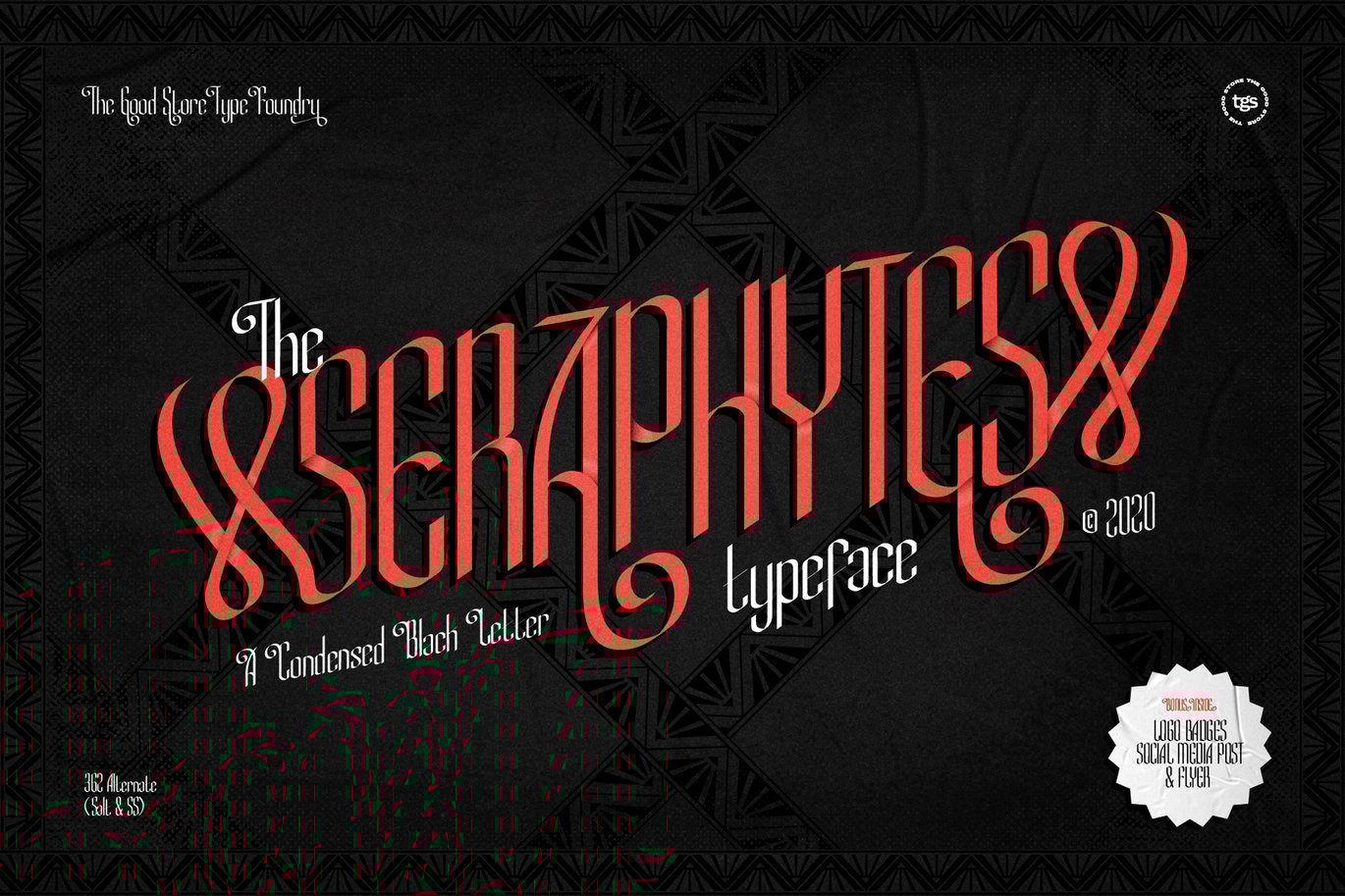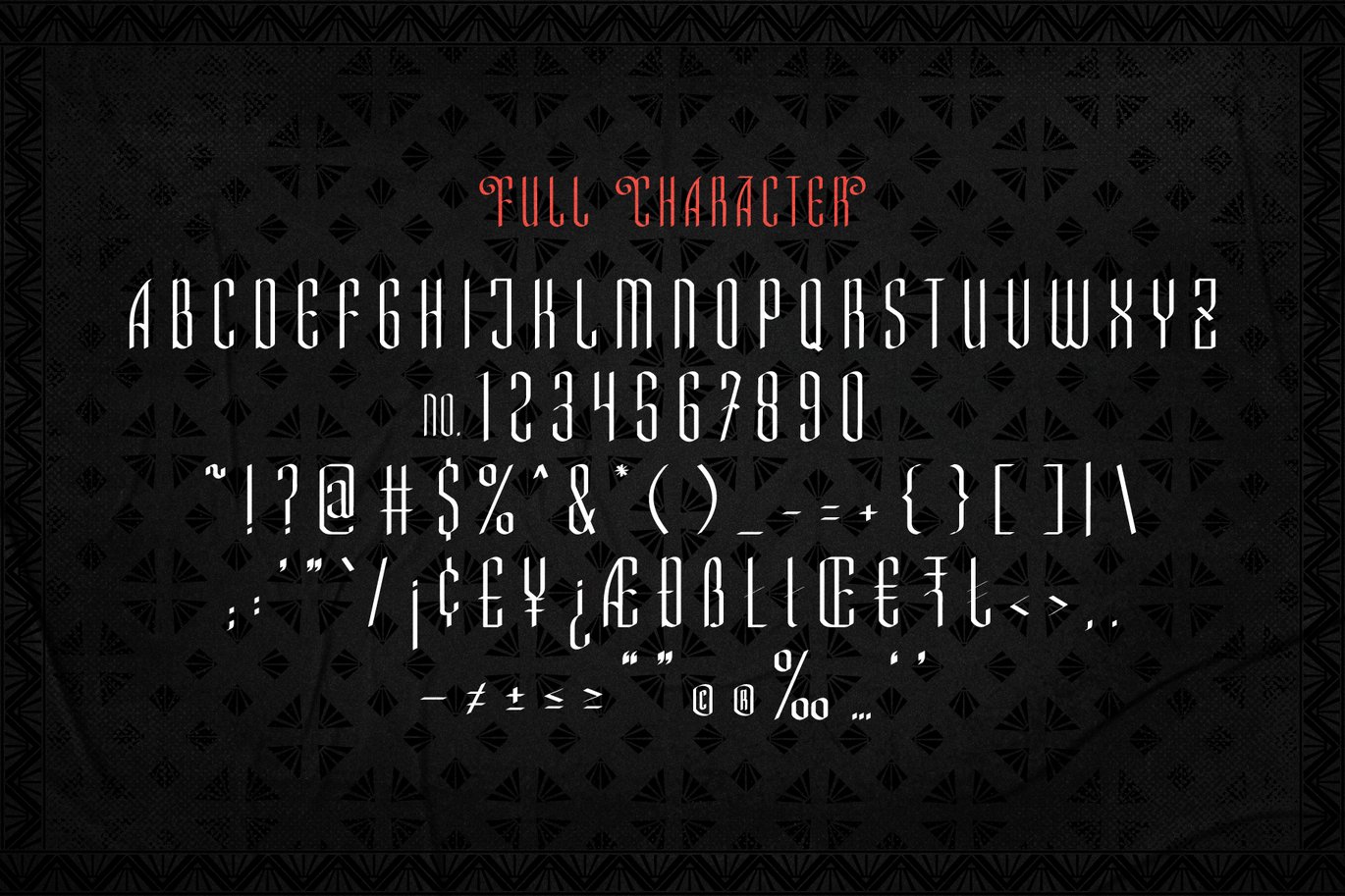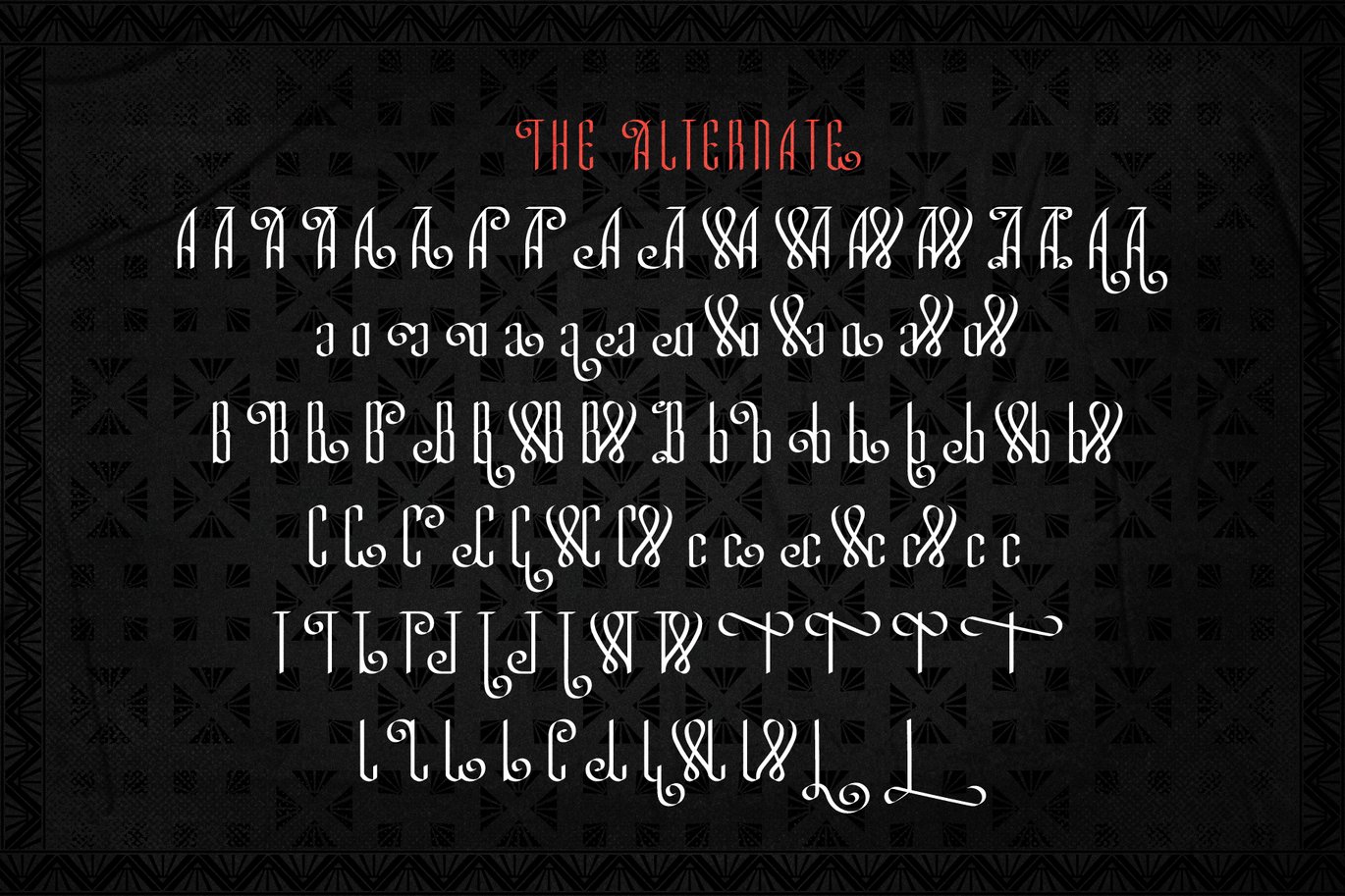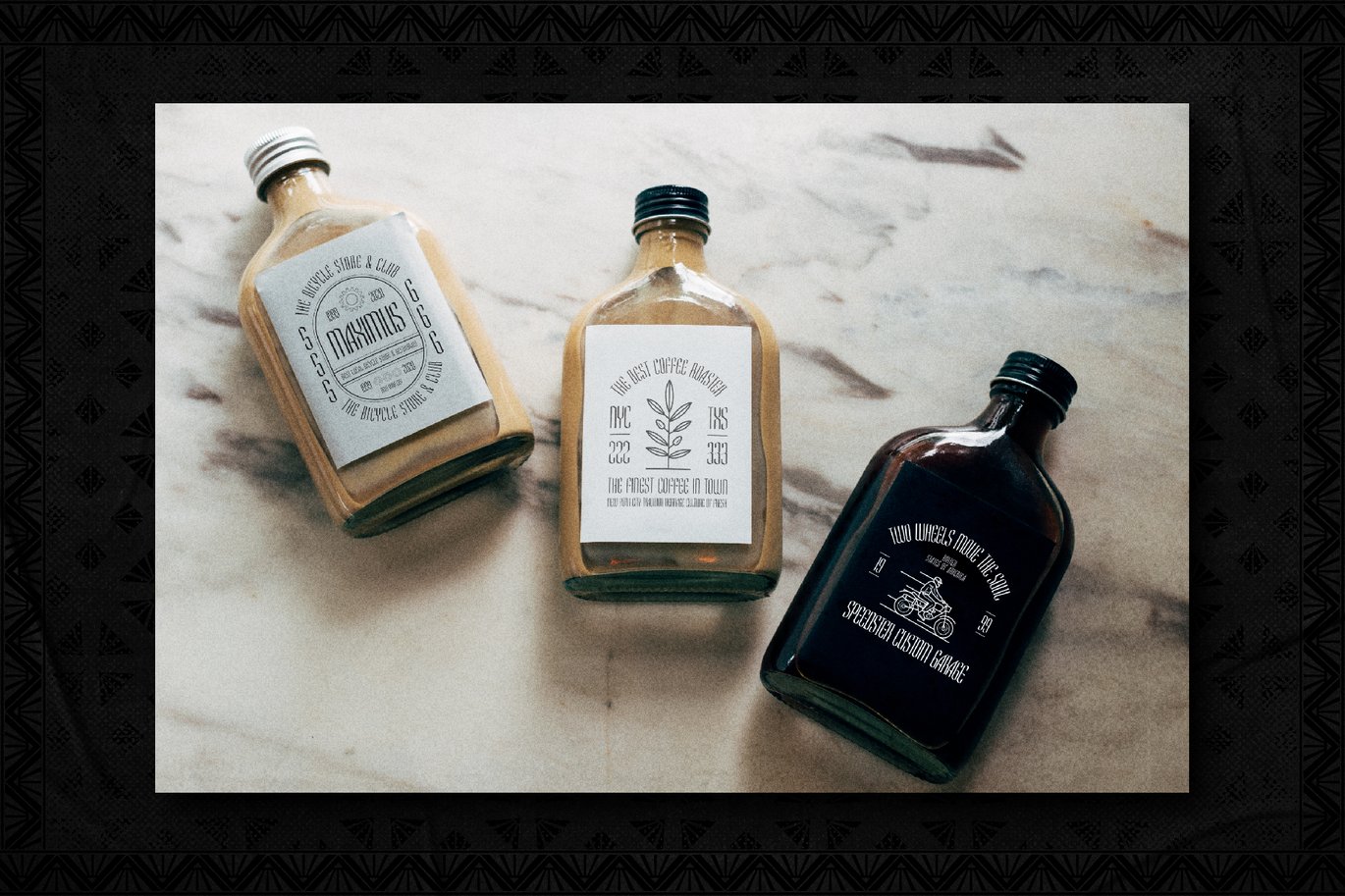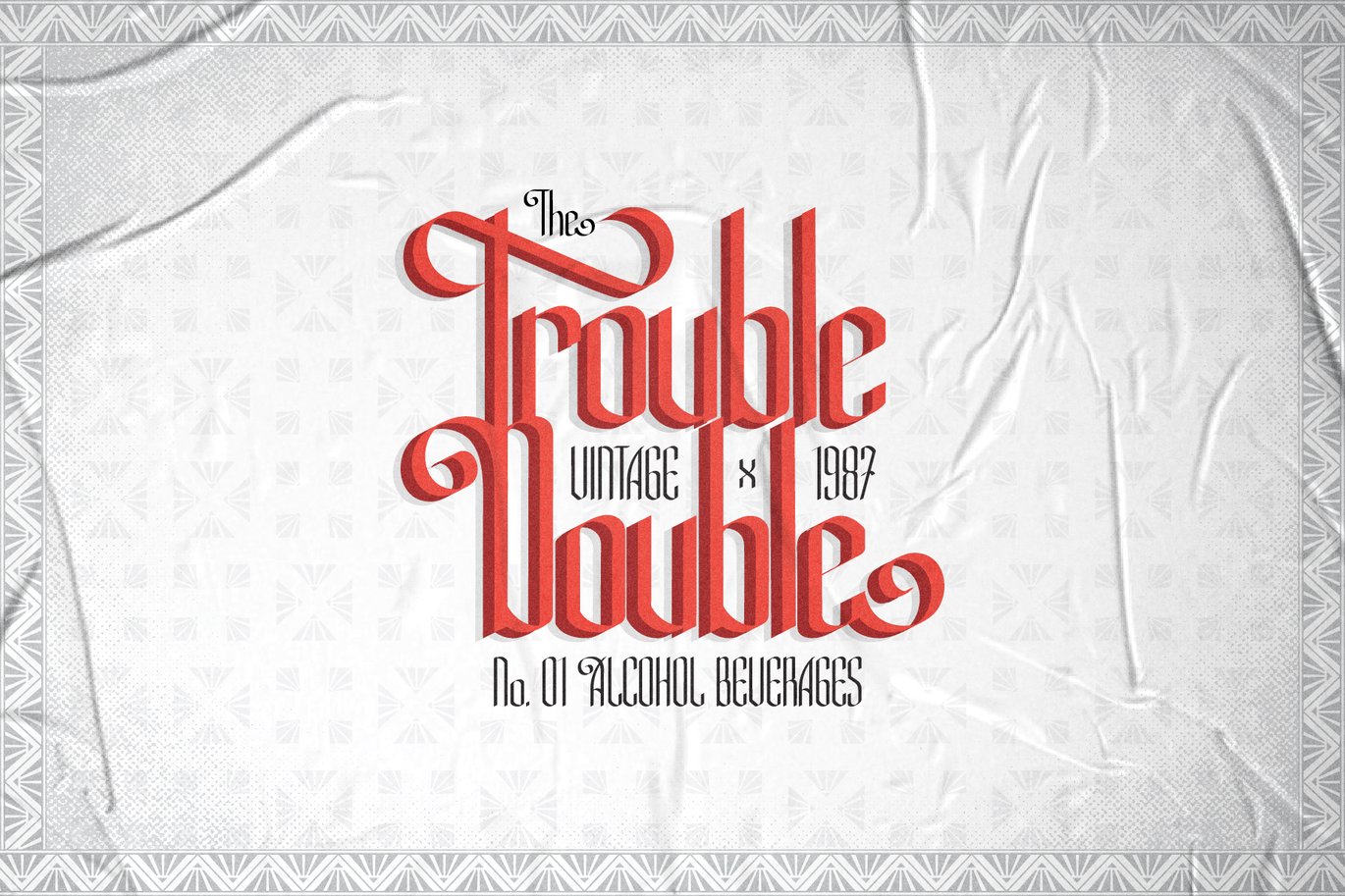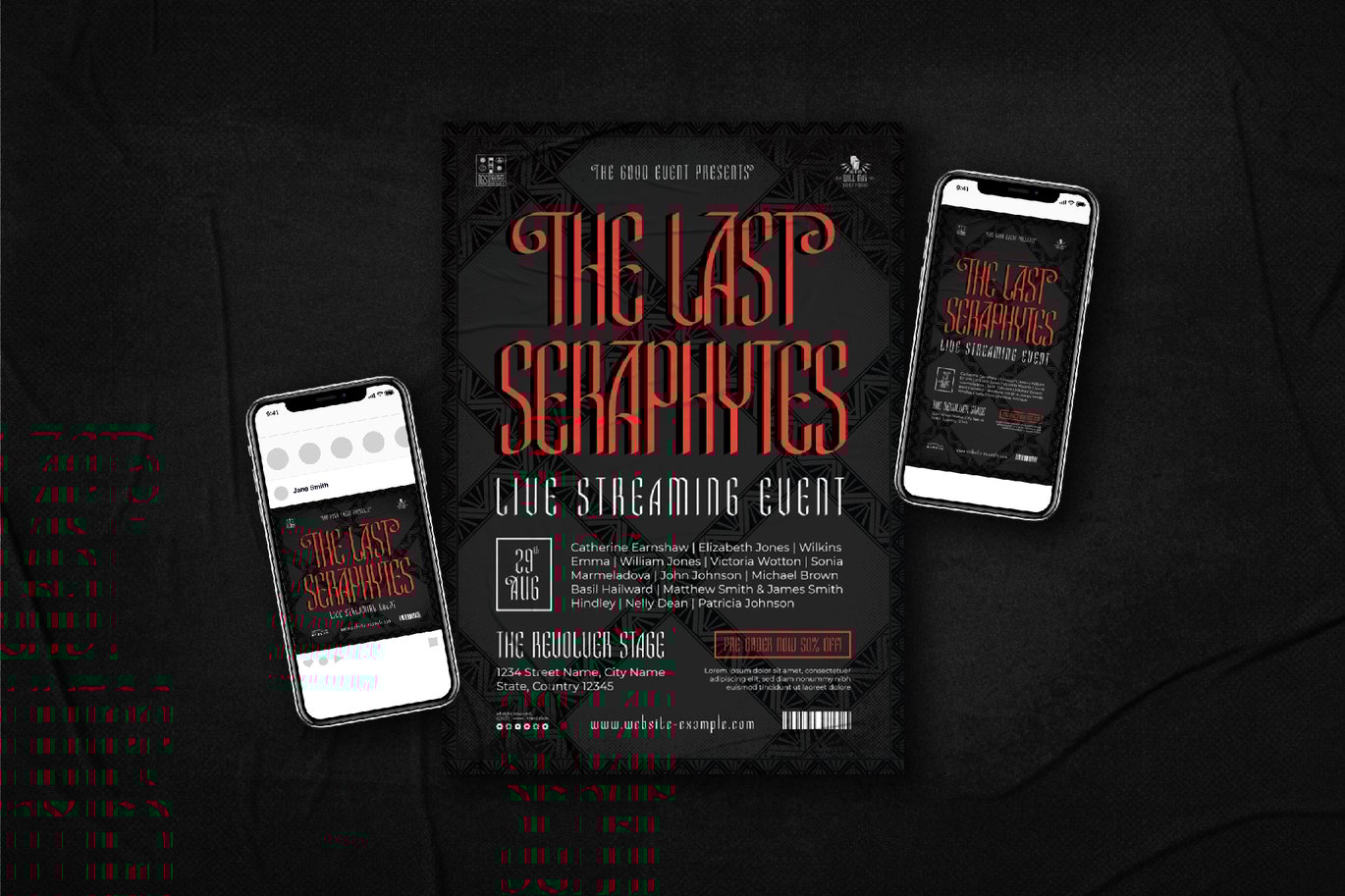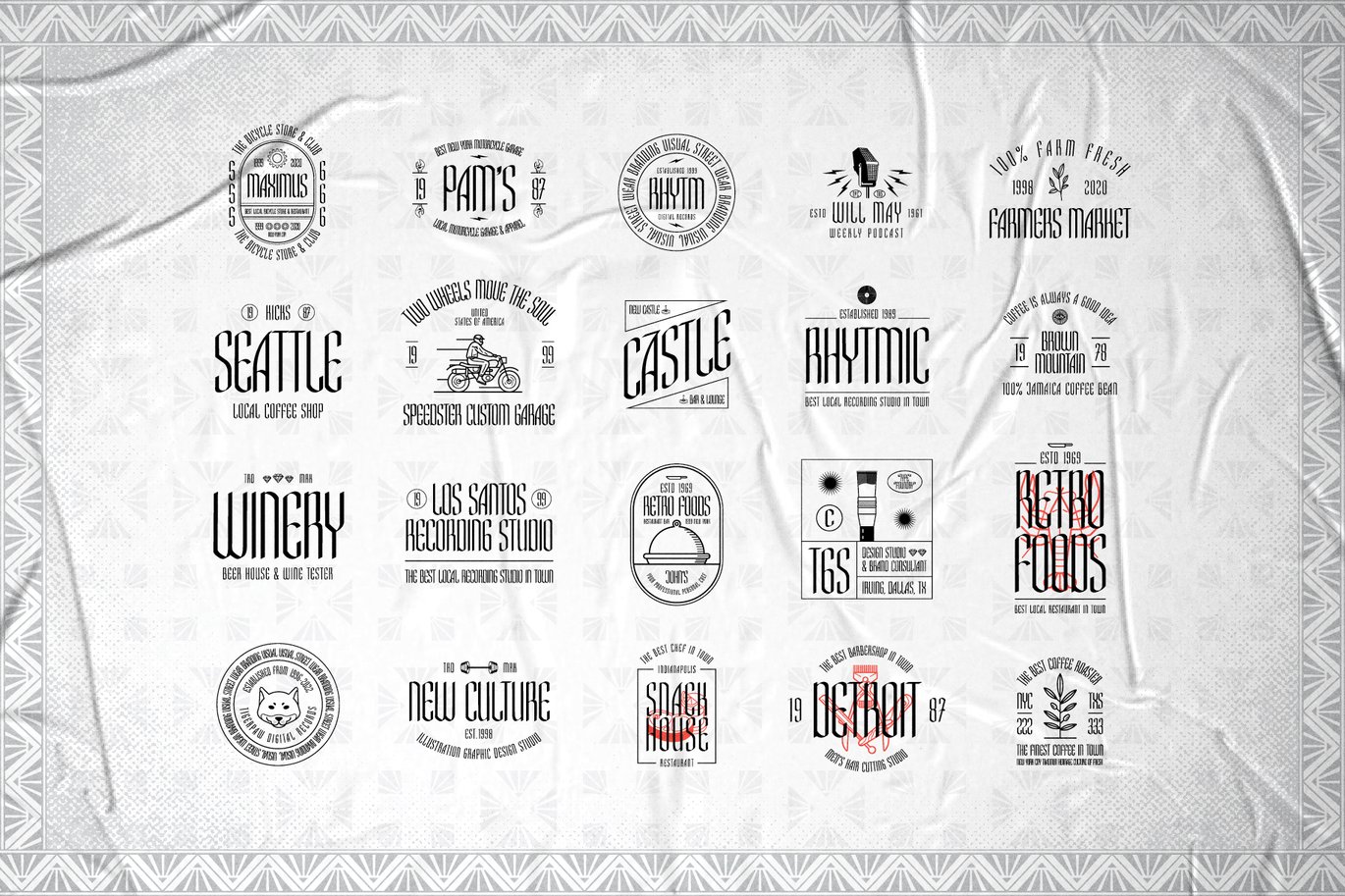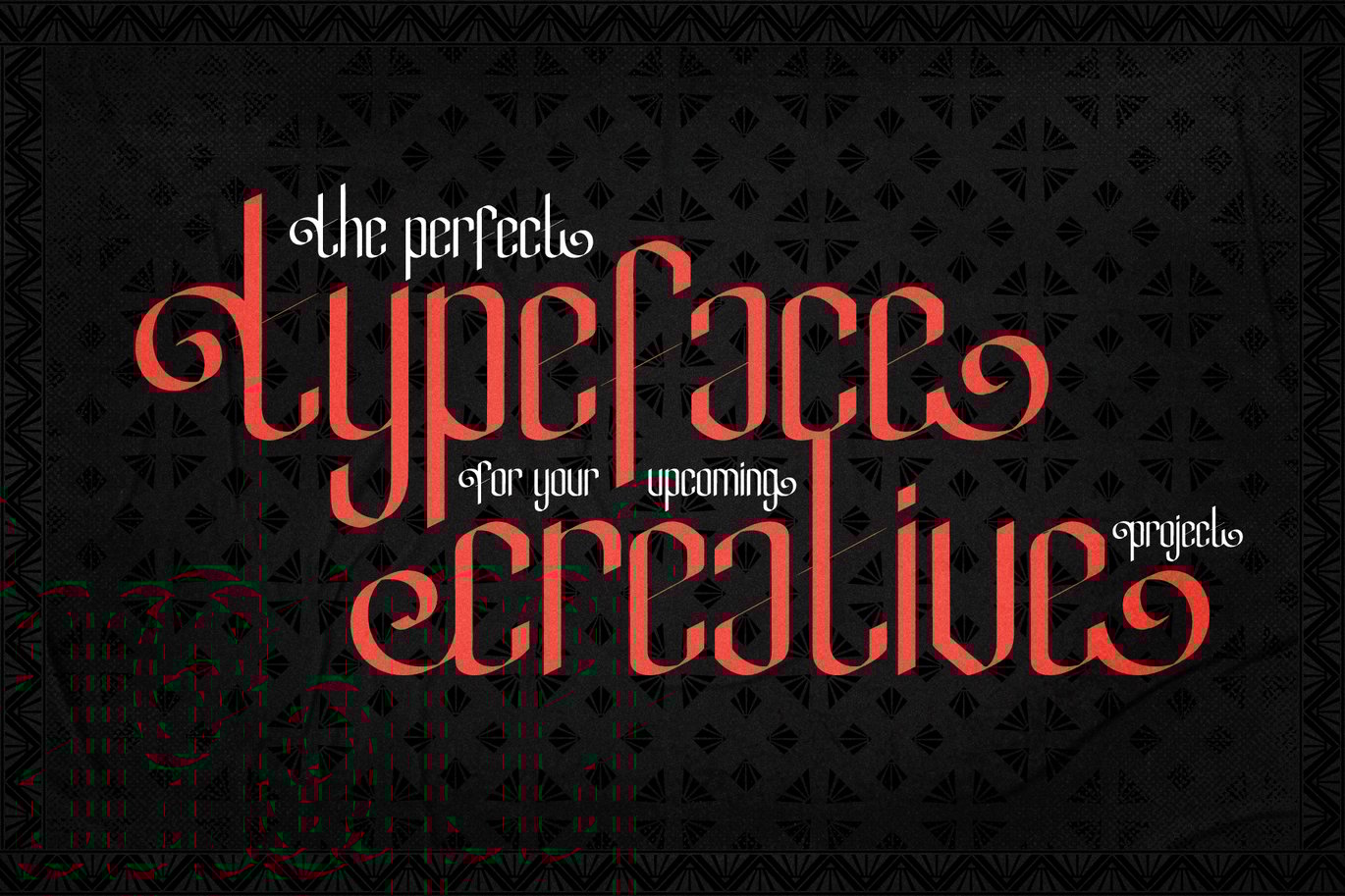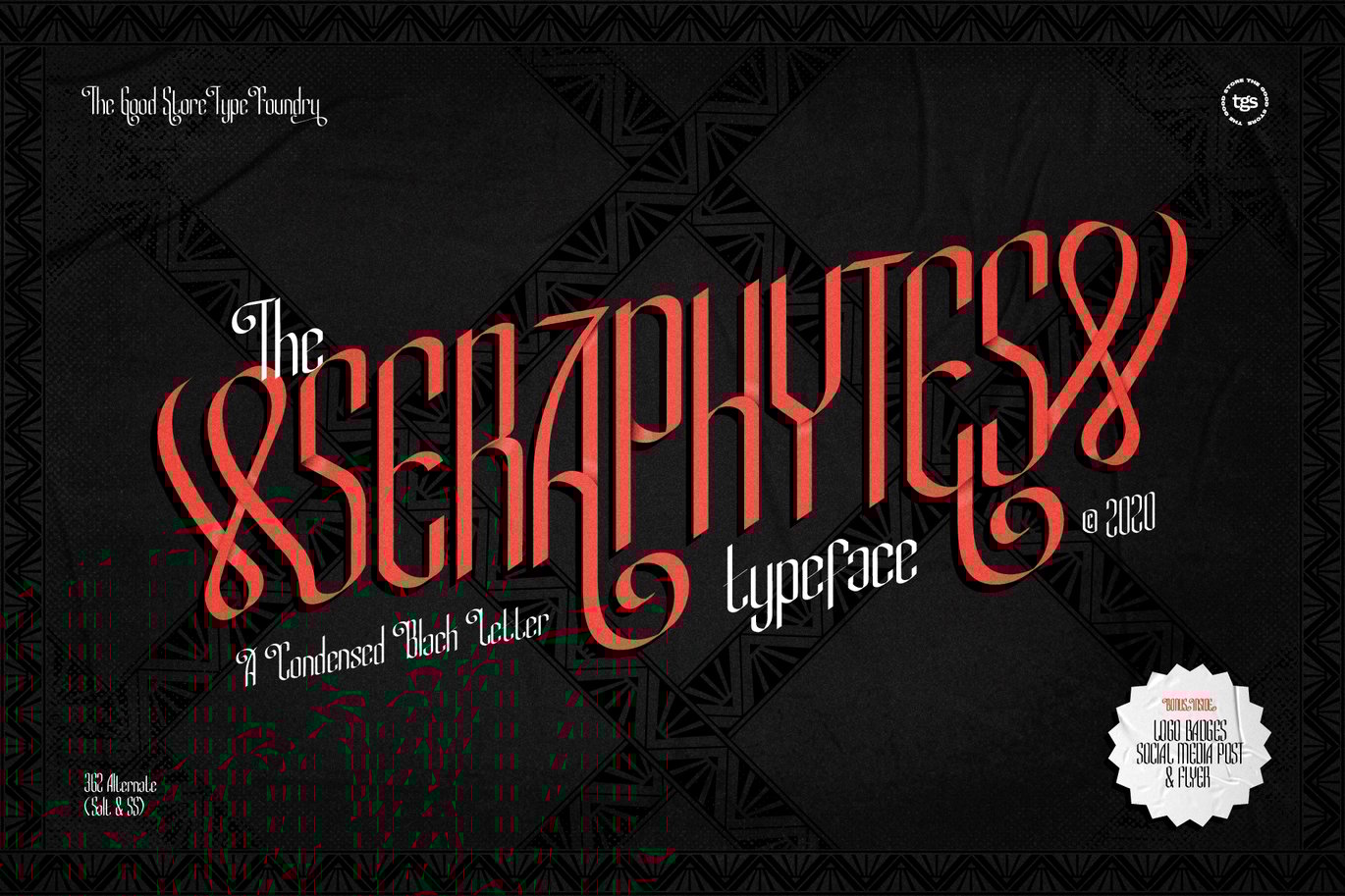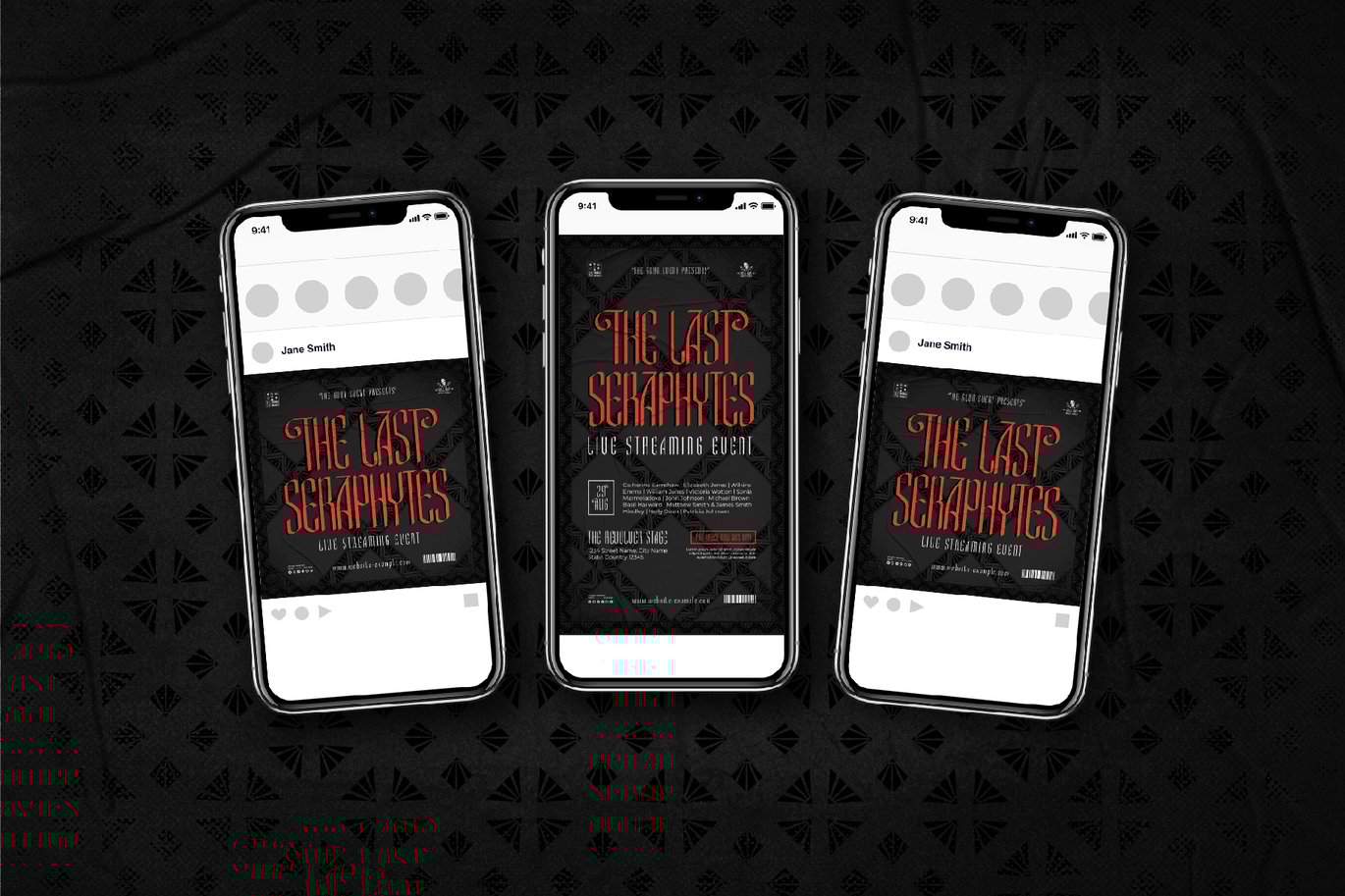
Seraphytes Typeface
Seraphytes is a Condensed Blackletter Display Typeface that inspired by a video game primitivist cult and antagonistic.
- 362 Alternate (Salt & SS)